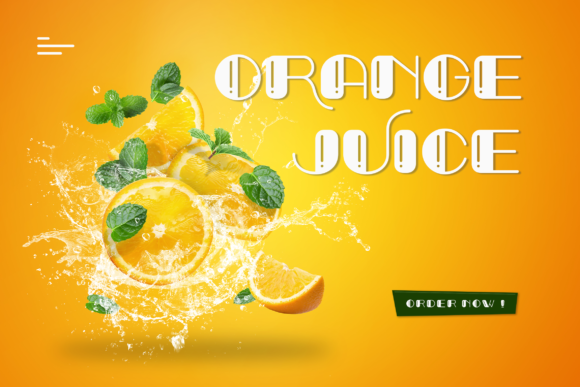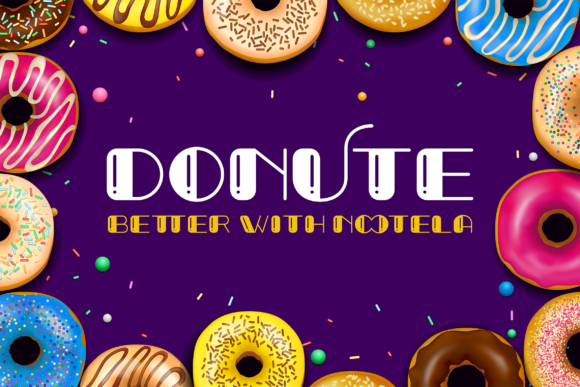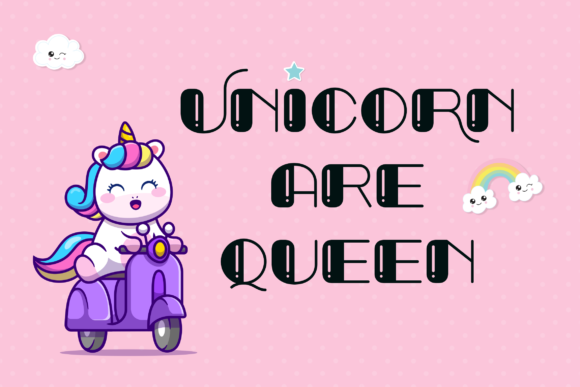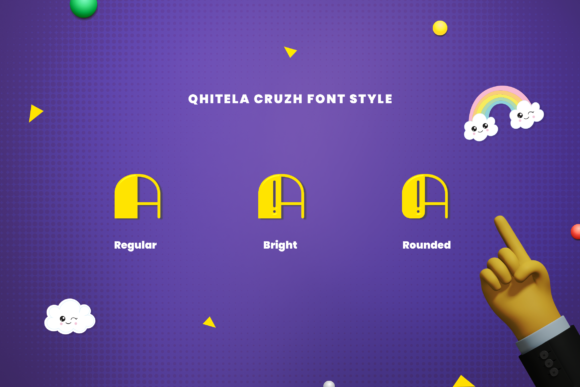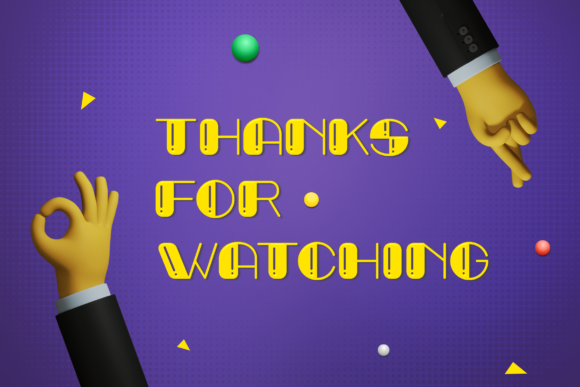
Introduction to Qhitela Cruzh Font
Qhitela Cruzh is a fresh and playful display font, featuring an incredibly friendly vibe.
Key Features of Qhitela Cruzh Font